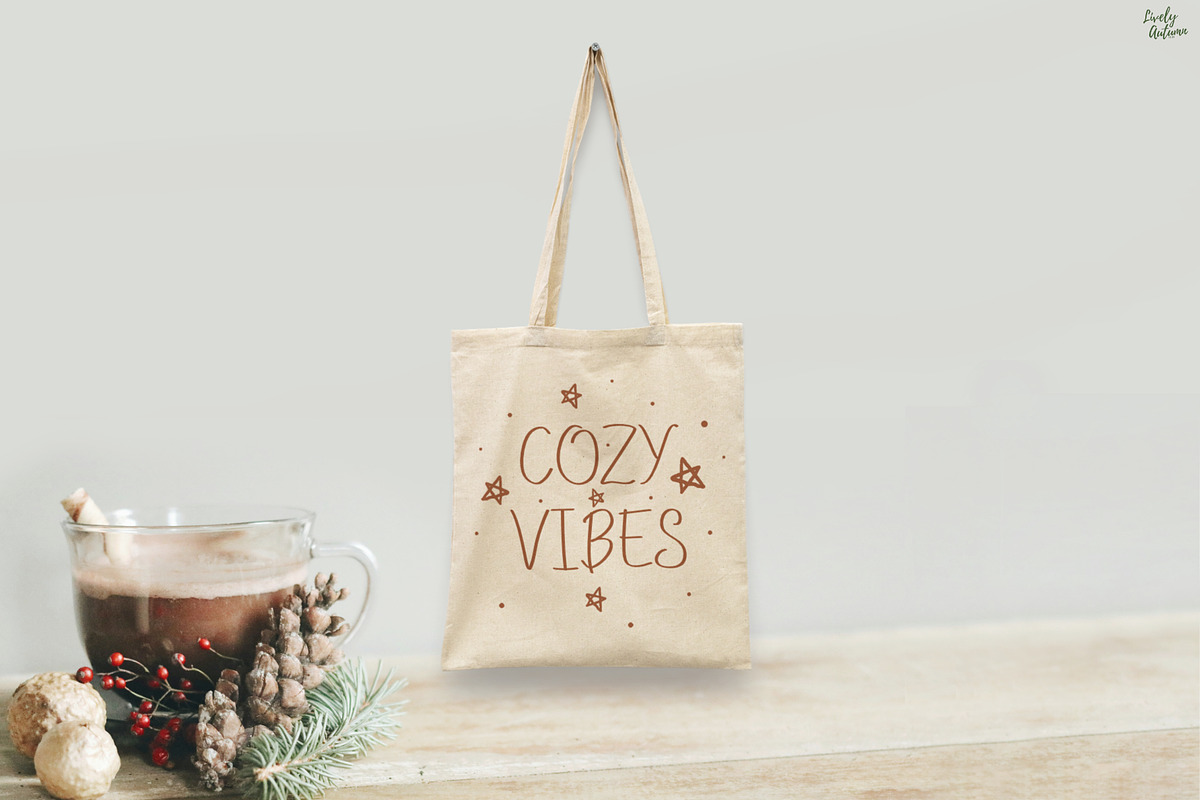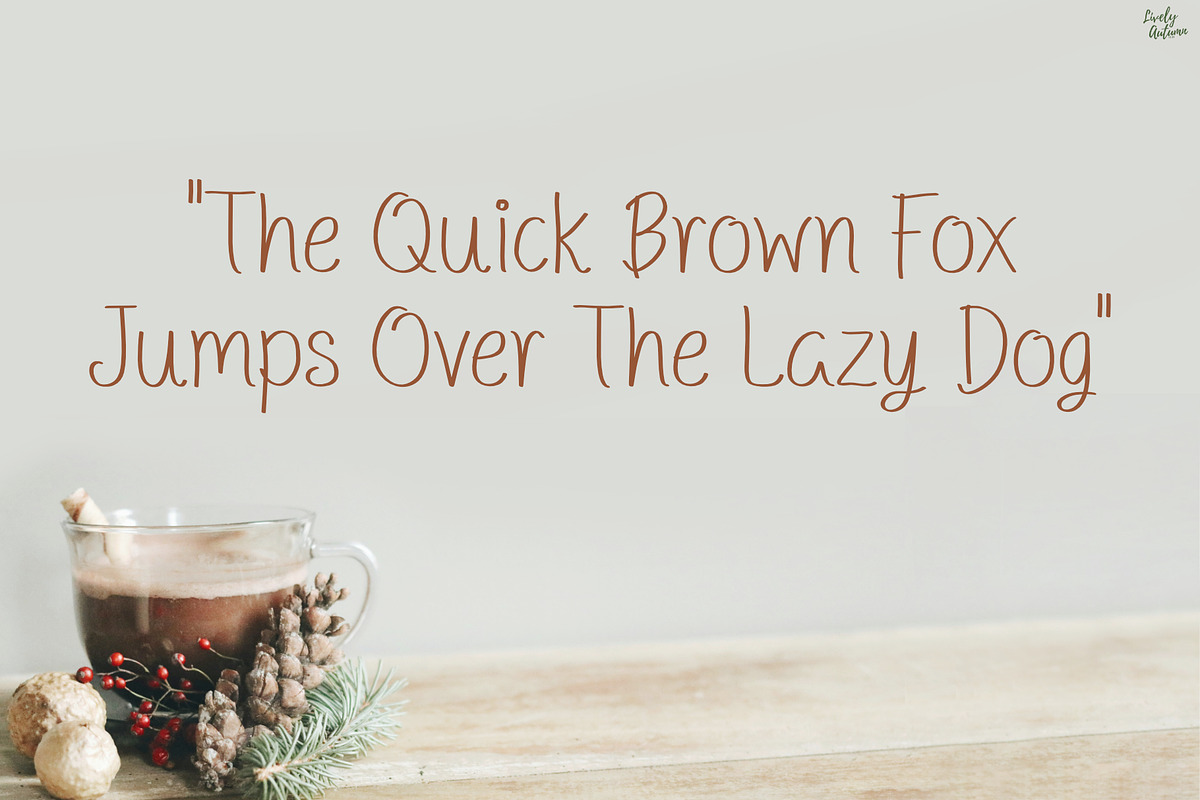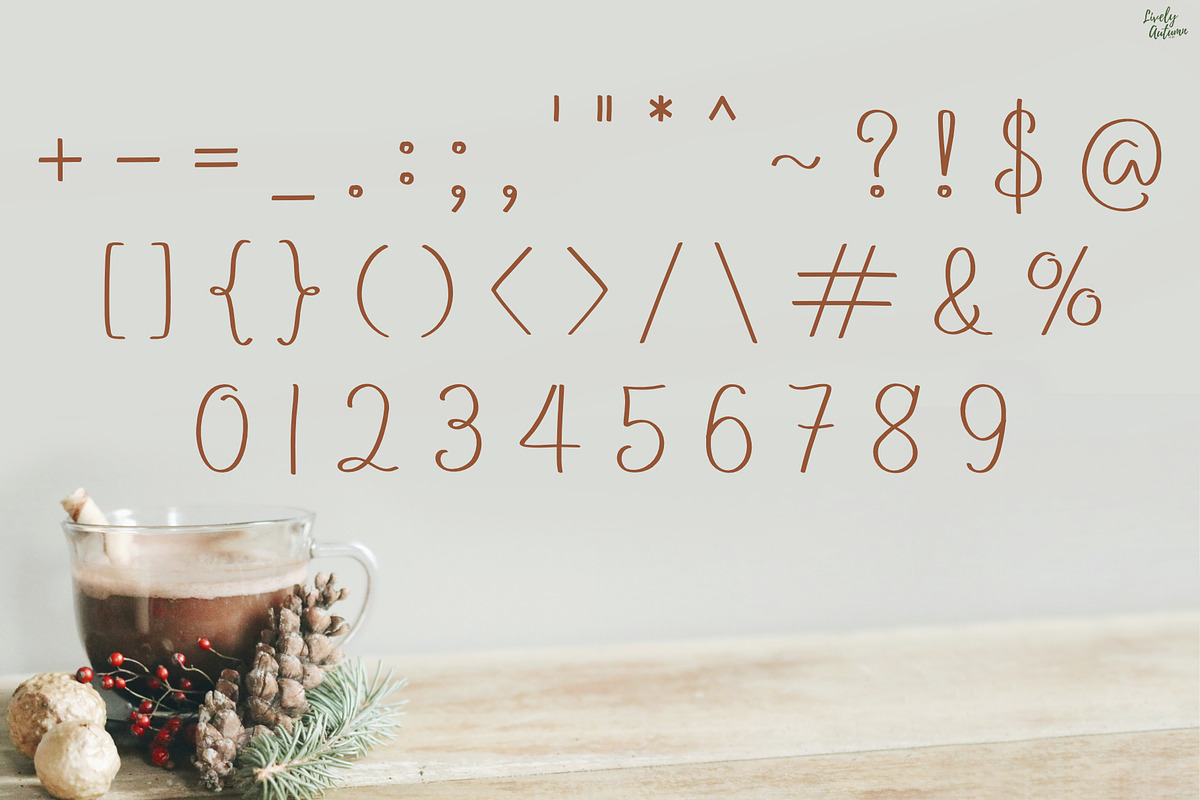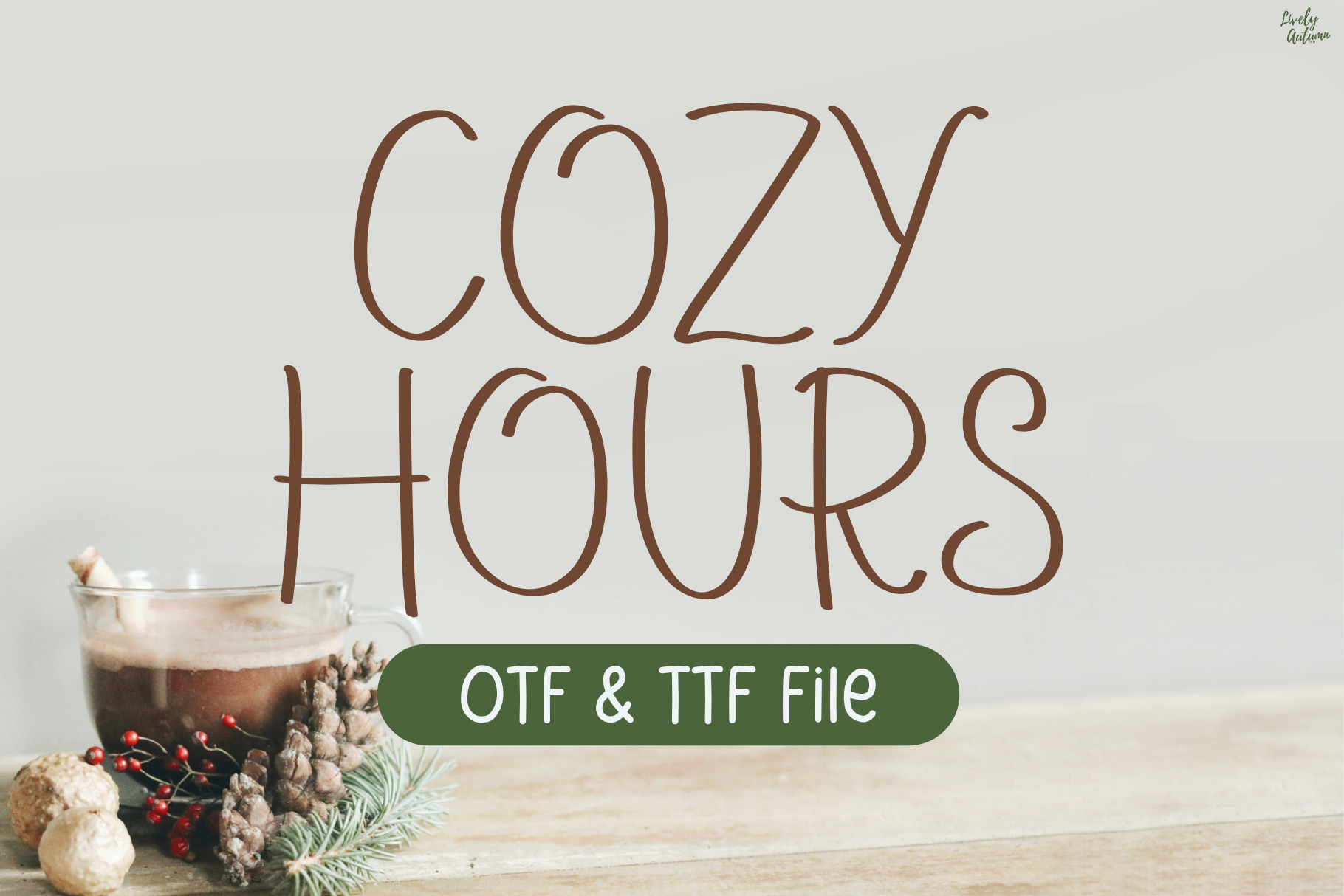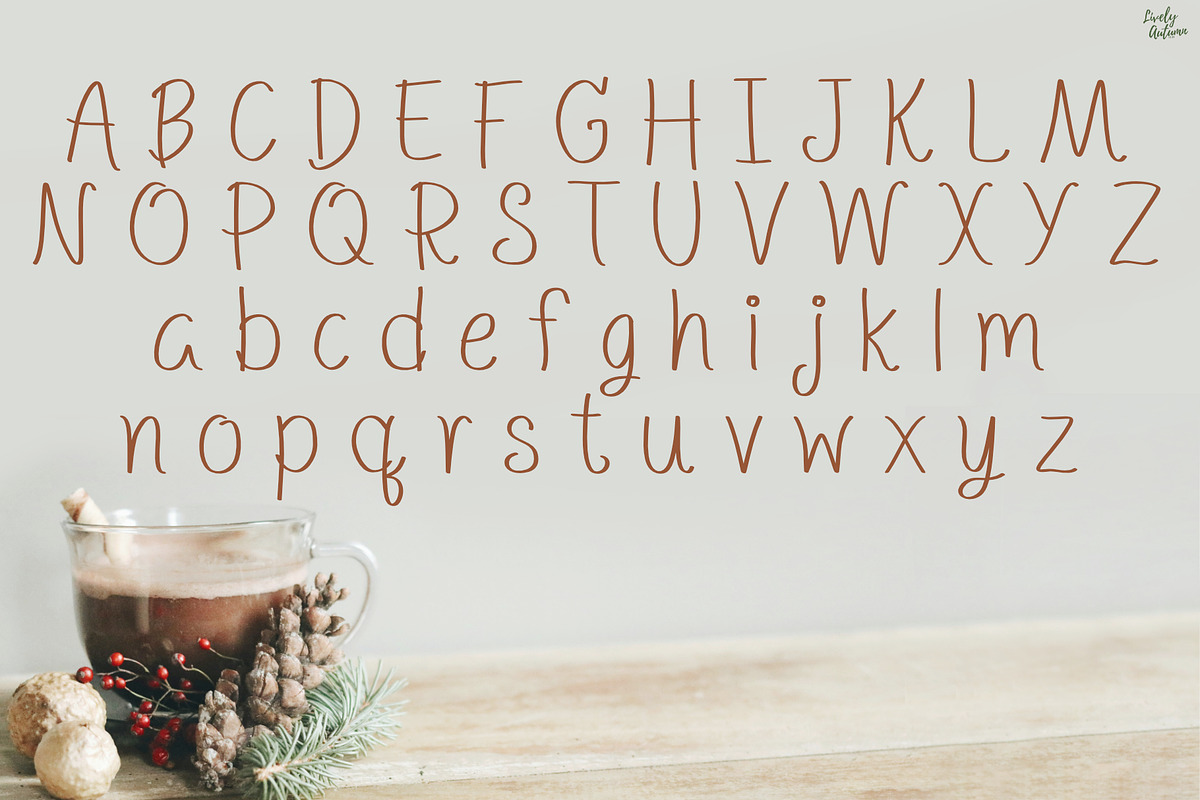
Cozy Hours | Handwriting font
Cozy Hours Font is a sans serif handwritten font created using a chisel tip brush. Perfect for your personal projects and various projects. From invitations to posters, social media graphics, journals, stickers and much more.
- Font includes: uppercase, lowercase, numbers, and punctuation